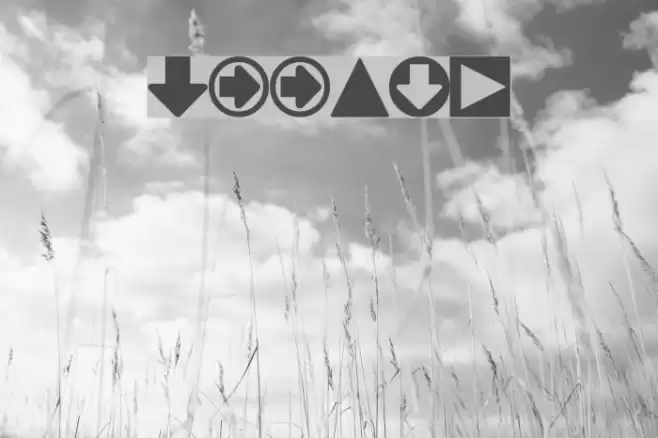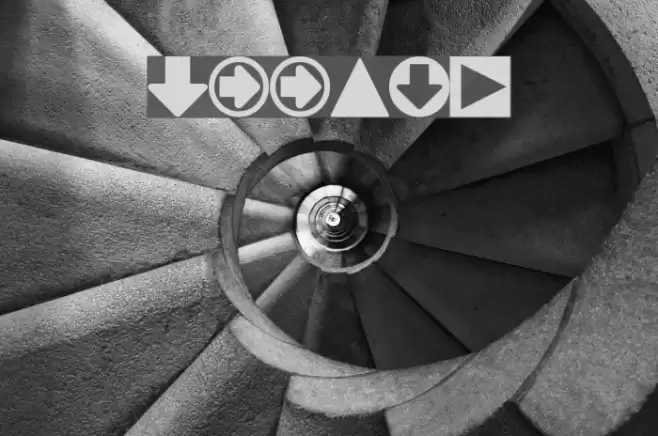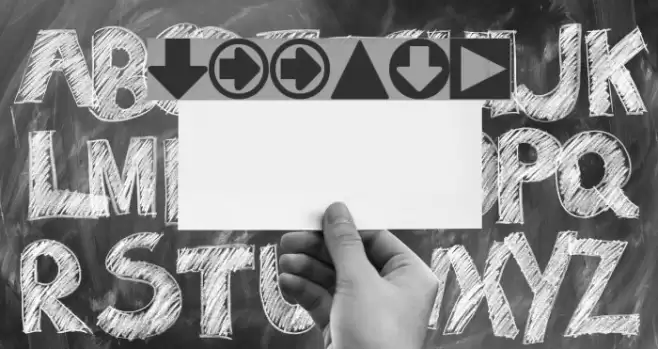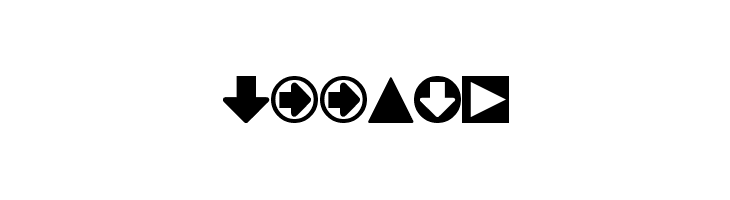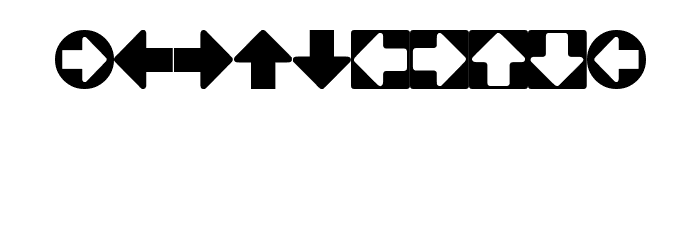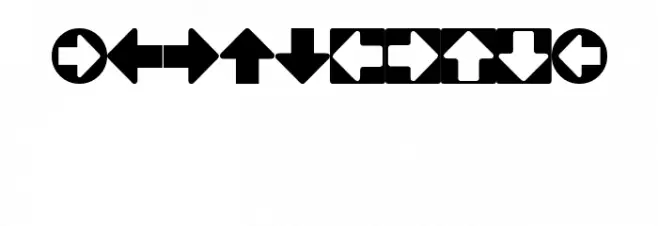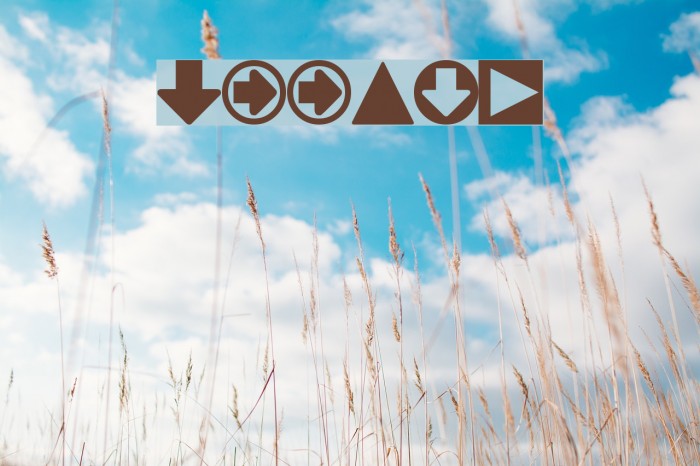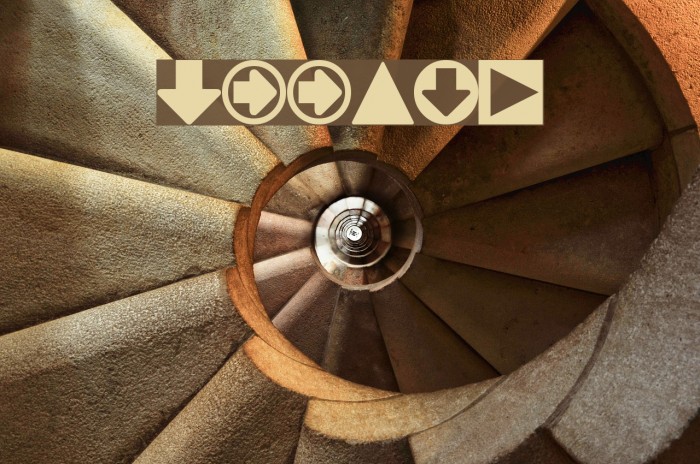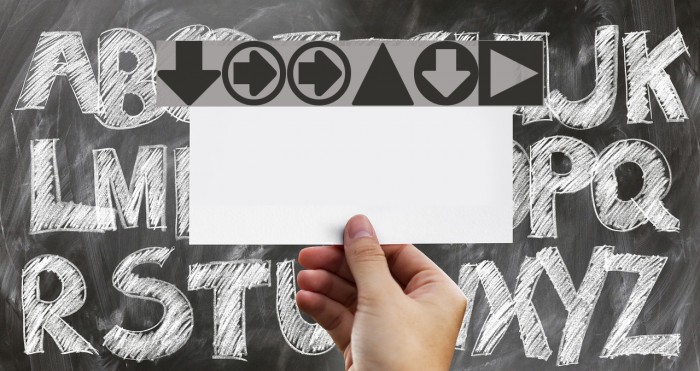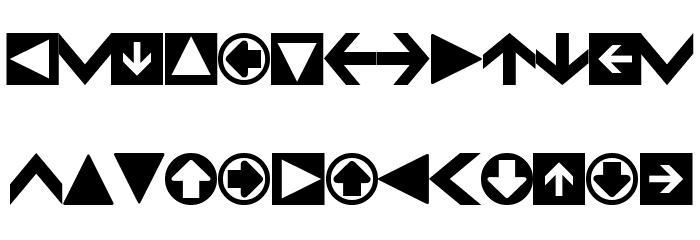
4rrows Font
4rrows Description
A bold, geometric dingbat font featuring a variety of arrow symbols in different directions and styles, including filled, outlined, and circled forms. The glyphs are constructed with sharp angles and strong contrast, making them highly visible and suitable for signage or graphic elements.
A decorative arrow symbol font with bold, geometric shapes from Dingbats fonts.
- Proposed Projects: Wayfinding systems, infographics, signage, UI icons, instructional graphics, posters.
- Overall Style: Decorative, Modern, Geometric
- Use Case: Icons, Signage, Infographics, Decorative elements